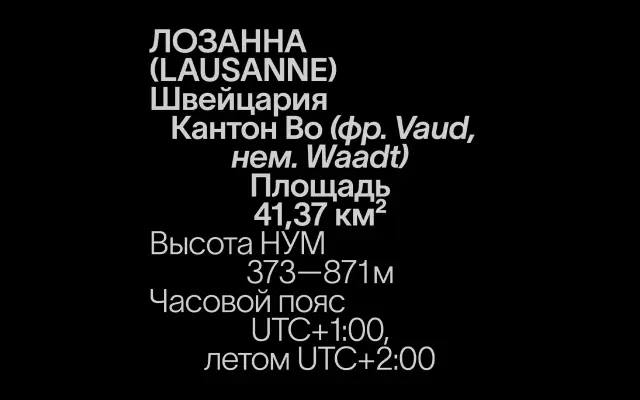
Lausanne
WELTKERN · Nizar Kazan
A Swiss grotesque by Nizar Kazan offering 20 weights from 50 to 1000, each with a matching italic, and coverage across Latin, Cyrillic and Greek scripts.
Designed by Swiss designer Nizar Kazan and published through WELTKERN, Lausanne works in 50-unit weight increments from hairline to ultra-black, giving designers unusually fine control over typographic colour. The script coverage across Latin, Cyrillic and Greek makes it practical for multilingual editorial and fashion work, as evidenced in the specimen copy referencing brands such as Post Archive Faction and Coperni. Its neutrality sits comfortably in both screen interfaces and print contexts.
Lausanne is a Swiss grotesque in the tradition of neutral European sans-serifs, designed by Swiss designer Nizar Kazan with an exceptionally granular weight axis spanning 50 to 1000 in 50-unit increments.